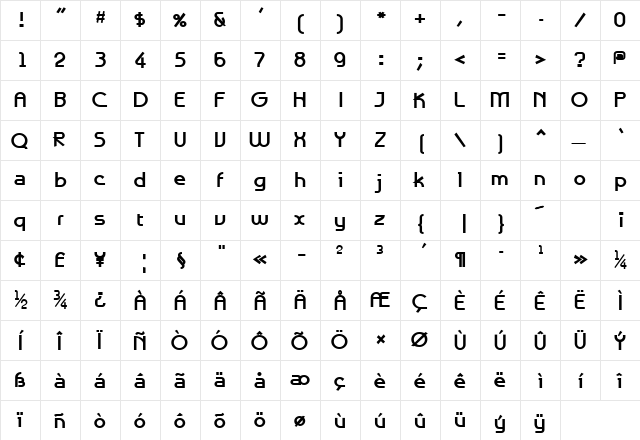
GalexicaXBold Bold Font Preview
GalexicaXBold Bold
Design Context for GalexicaXBold Typeface
GalexicaXBold is a composed and adaptable typeface that performs quietly and consistently across a wide range of design contexts. Its bold stroke weight gives it real presence on the page.